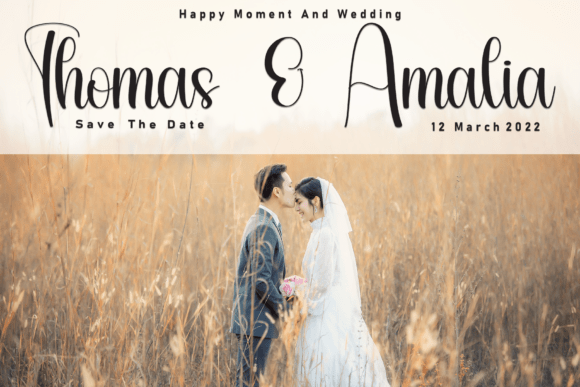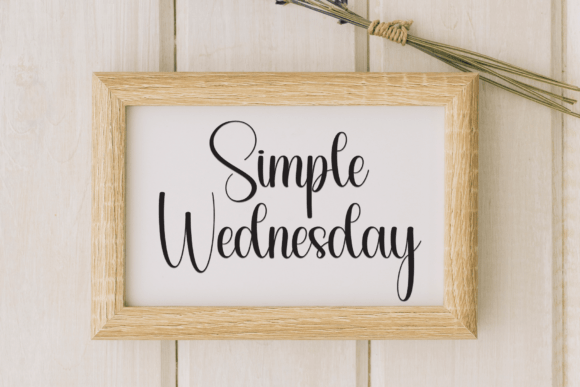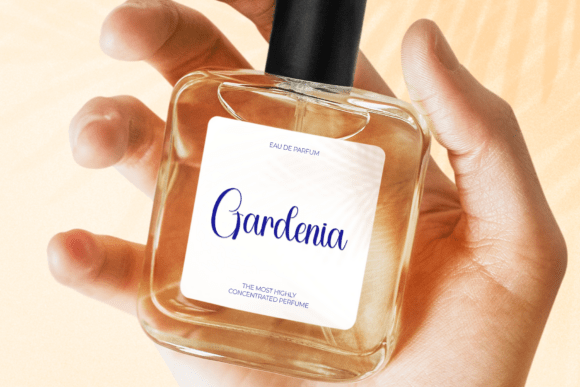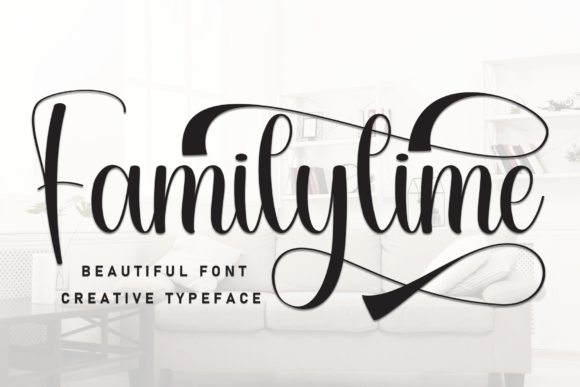
Introduction to Familytime Font
Discover a captivating blend of meticulously designed handwriting and compelling typography in our font, embodying the untamed charm and spontaneity of artisanal work.
Radiating a relaxed elegance, it flawlessly encapsulates pure joy and vibrant energy This font seamlessly augments the emotional resonance of wedding invites or uplifting notes, whilst thriving in any creative space seeking a casual touch of enchantment.